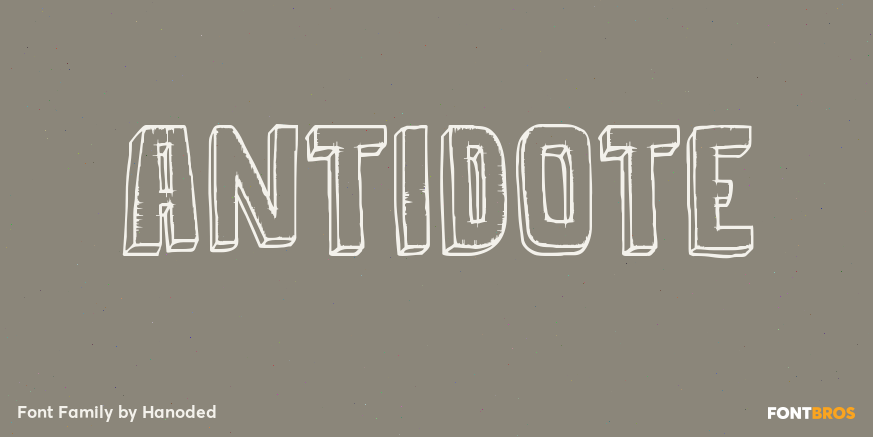
HomeFont BrosDistressedAntidote Distressed Antidote FacebookXPinterestWhatsApp 1 of 1 About Antidote is a grungy 3-D font. It is hand drawn and has been given a \’cracked\’ look. Looks great in headlines, titles and on packaging, but I wouldn\’t set a text in it as it is quite heavy.  DOWNLOAD ON FONT BROSThis font is sold and delivered by Font Bros. Font Canyon may earn a commission if you buy through this link. People also explored Betsy Bailey Font Mashpoints Font Hadazzle Font Mawamo Font Soulwave Font Micahel Rukyltronic Beautiful Mellinda Font Germaly Font 337 0 TagsAntidote Font Previous articlePinkarellaNext articleSilent Echo LEAVE A REPLY Cancel reply Comment: Please enter your comment! Name:* Please enter your name here Email:* You have entered an incorrect email address! Please enter your email address here Website: Save my name, email, and website in this browser for the next time I comment. Personal Use Free Quick Count Personal Use Free Read more about this font Ontel Personal Use Free Read more about this font Osaka Personal Use Free Read more about this font Alligator Font Personal Use Free Read more about this font BLOG Using Fonts in Digital Marketing: Tips to Strengthen Your Brand Identity In the realm of digital marketing, every visual element plays a crucial role in shaping a brand's identity, and fonts are no exception. The... Best Fonts for T-Shirt Design – Top 2025 Picks Best Fonts for YouTube Videos: Make Your Thumbnails Stand Out Transform Your Website: Elevate Your Typography with 7 Best Web Font Generators